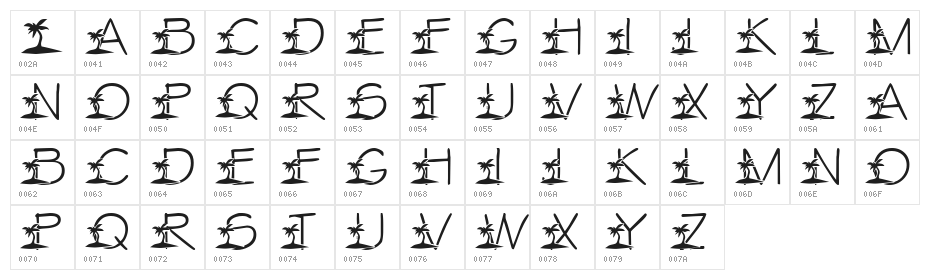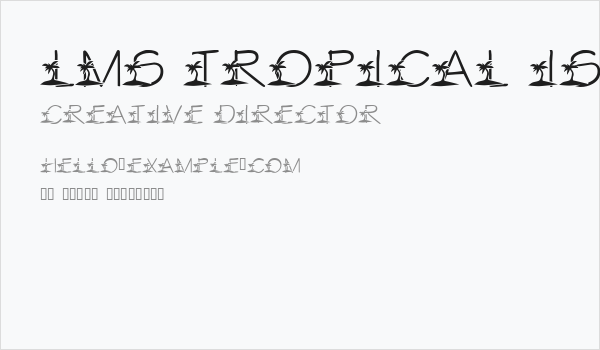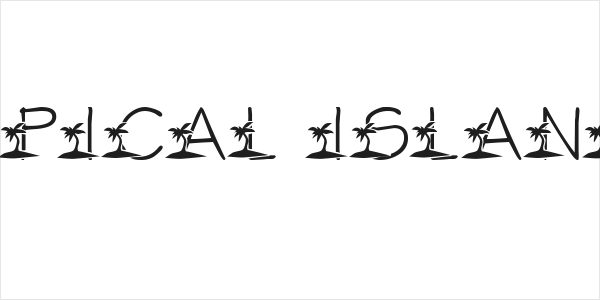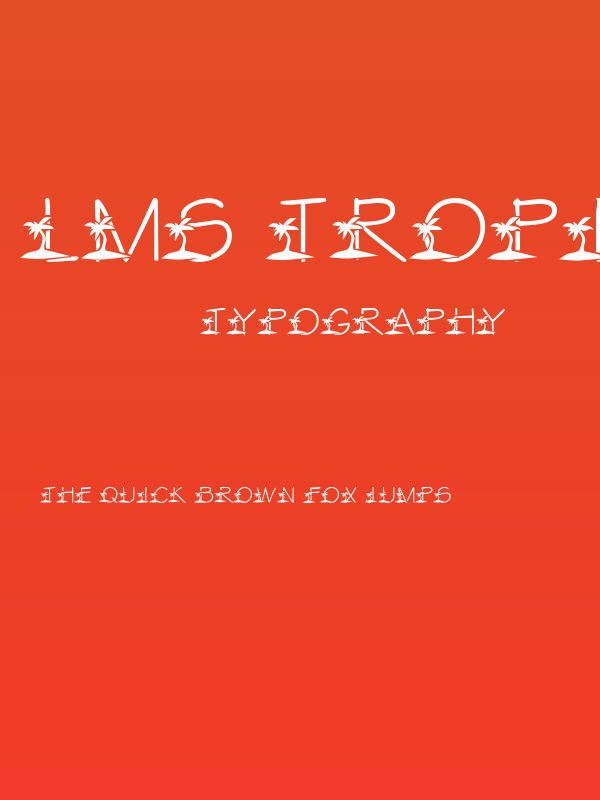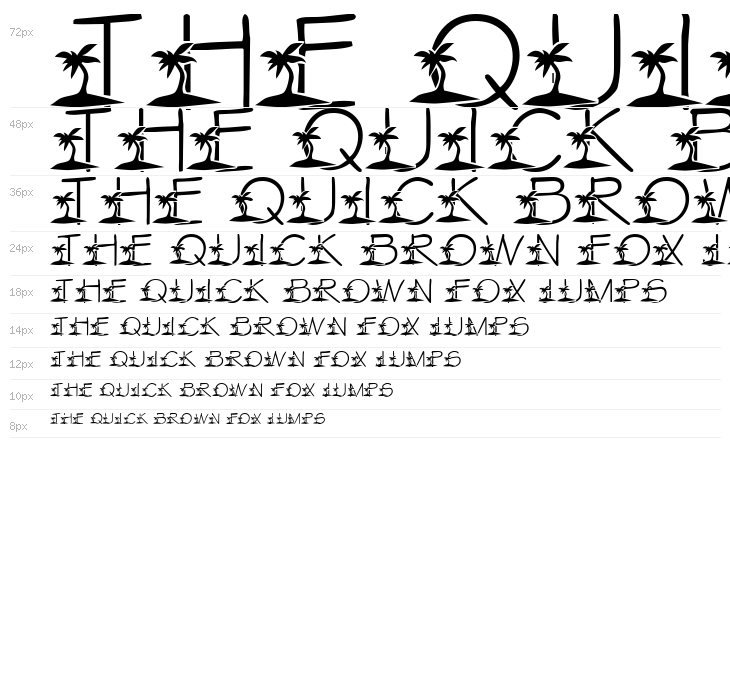
LMS Tropical Island Dream Font
LMS Tropical Island Dream Description
This decorative font features a tropical theme, incorporating palm trees and island motifs into each letter. The design is playful and imaginative, with each character seamlessly integrating elements of a beach scene. The uppercase letters are bold and striking, making them ideal for attention-grabbing headlines or thematic designs. The font's unique style evokes a sense of relaxation and adventure, perfect for projects that aim to capture the essence of a tropical paradise. The detailed illustrations within each letter add a layer of complexity and visual interest, making it a standout choice for creative projects.
| Proposed Projects | Ideal for travel brochures, beach party invitations, summer-themed posters, and any project seeking a tropical or vacation vibe. |